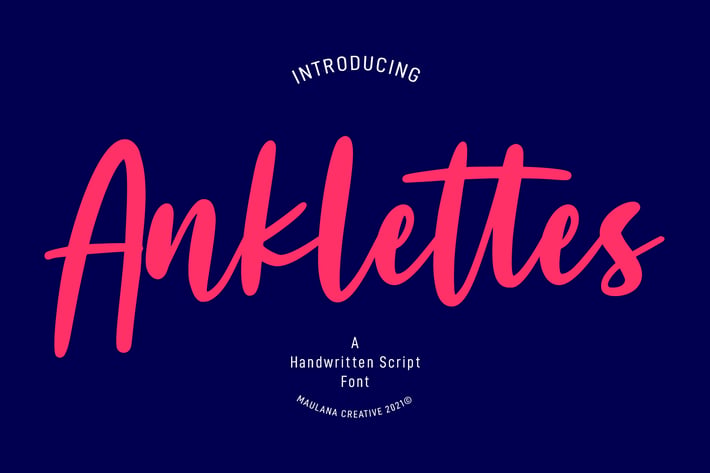
Anklettes Handwritten Script Font
Anklettes is a fancy handwritten script font. With bold stroke, slant and Unique Upper and lower characters with bit of ligatures and alternate lowercase. To give you an extra creative work. Anklettes font support multilingual more than 100+ language. This font is good for logo design, Social media, Movie Titles, Books Titles, a short text even a long text letter and good for your secondary text font with sans or serif. Make a stunning work with Anklettes font.